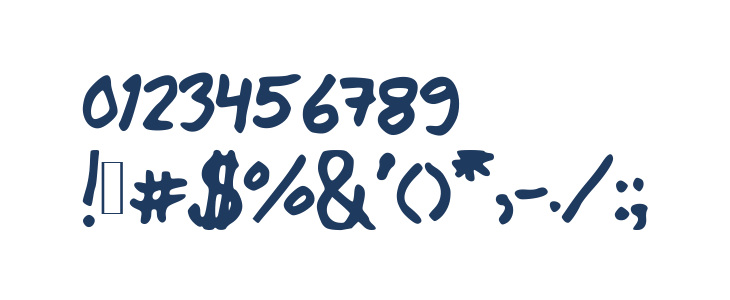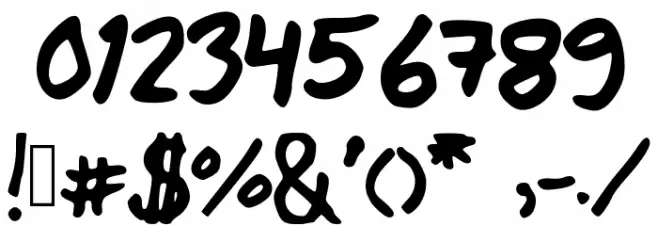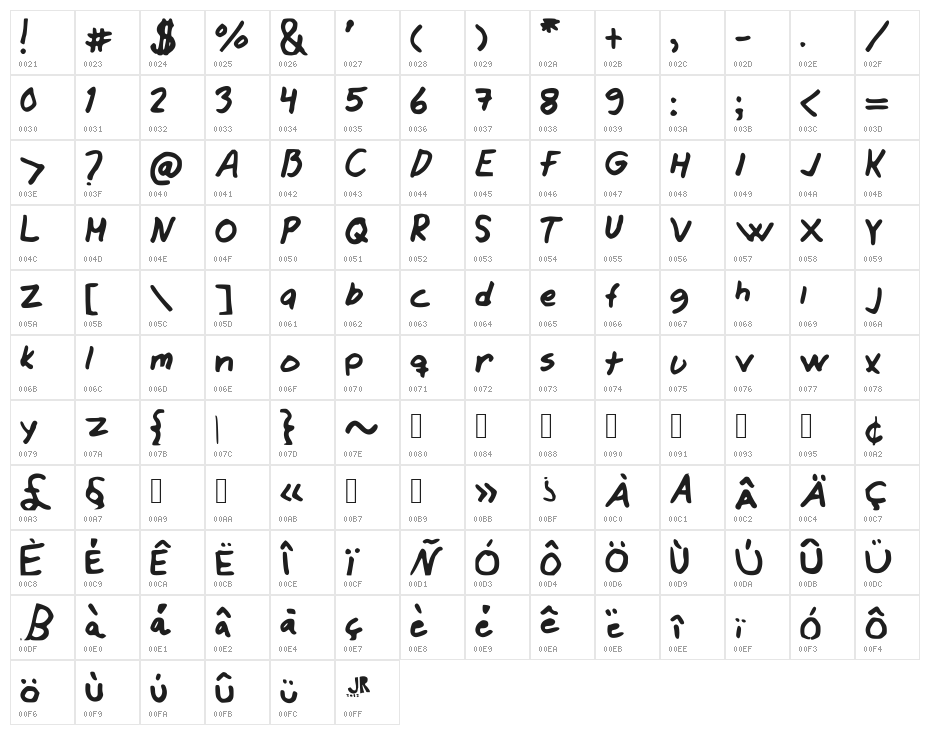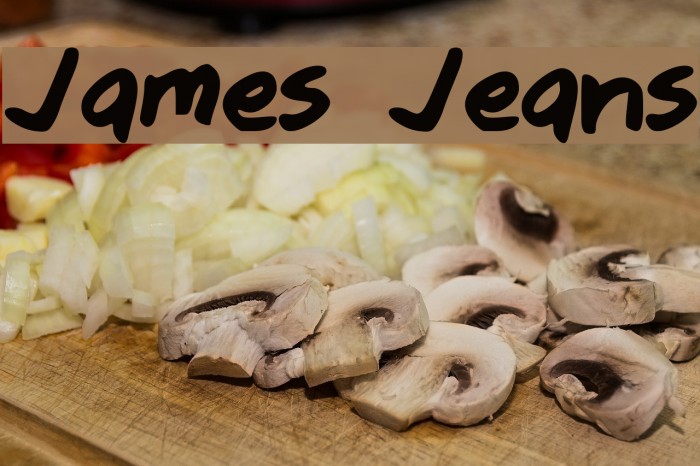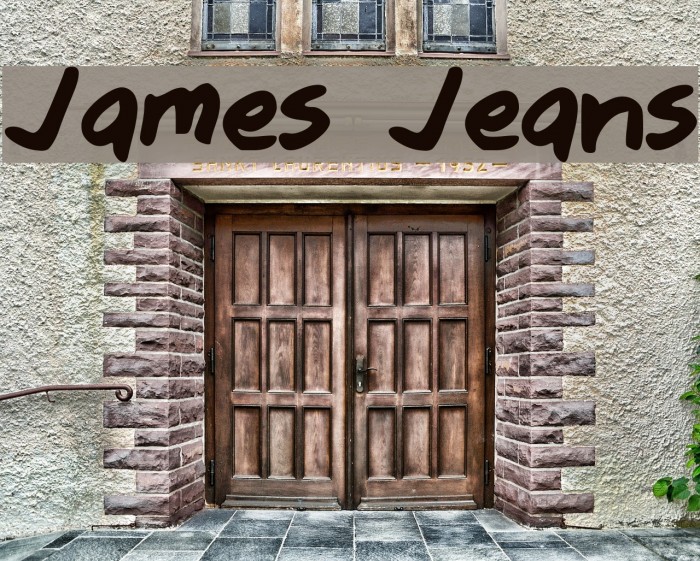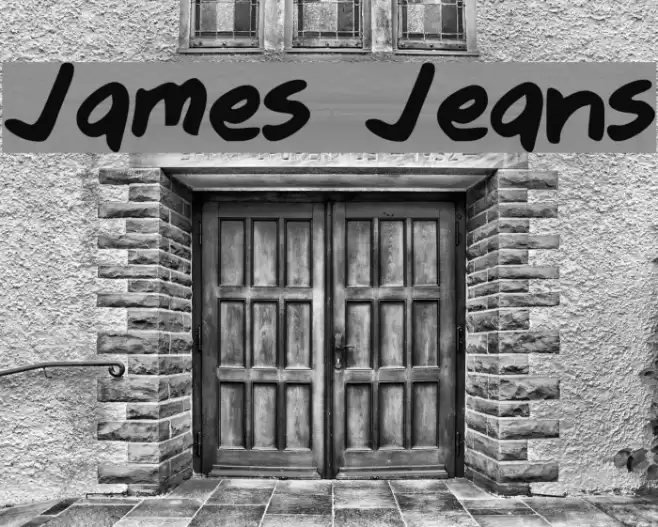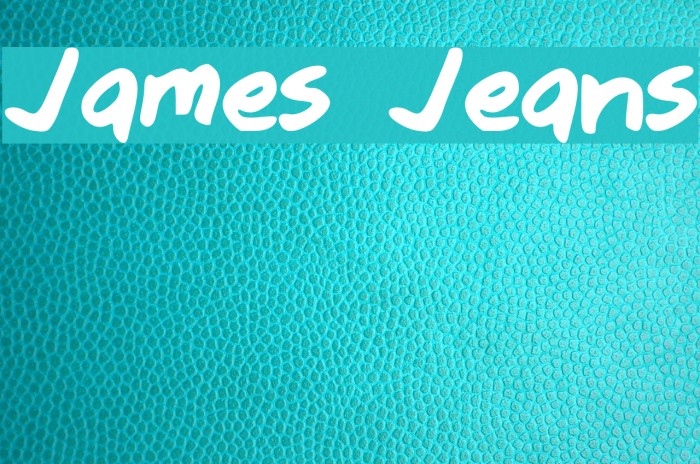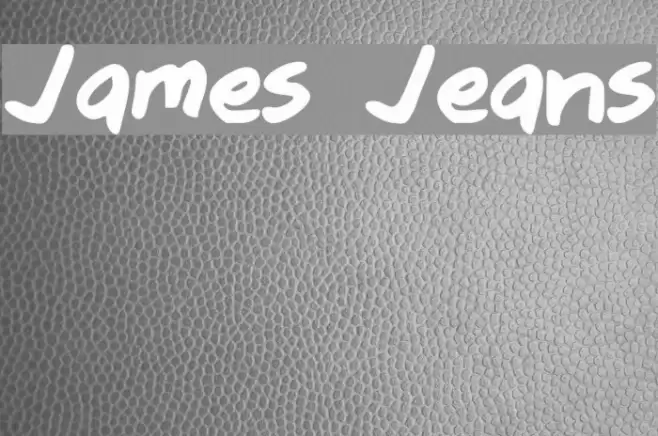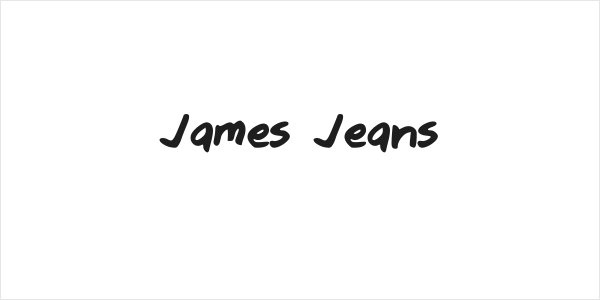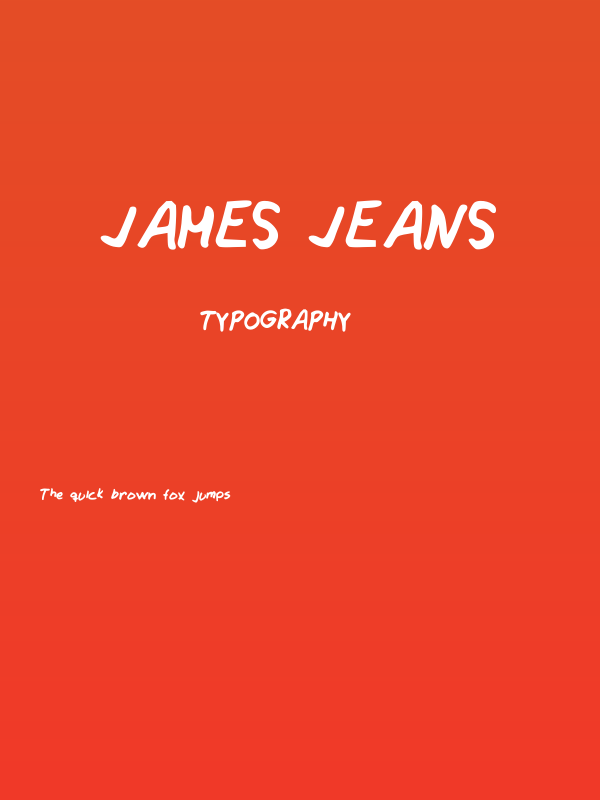
James Jeans Font
James Jeans Description
This font exudes a playful and casual handwritten style, characterized by its bold and slightly irregular strokes. The letters are rounded and have a dynamic flow, giving them a lively and energetic appearance. The uppercase and lowercase letters maintain a consistent style, with the lowercase letters slightly smaller and more compact. The numbers and special characters follow the same playful design, making them cohesive with the alphabet. This font's informal and friendly nature makes it suitable for projects that aim to convey a sense of approachability and creativity.
| Proposed Projects | Ideal for greeting cards, children's books, casual branding, and social media graphics. |